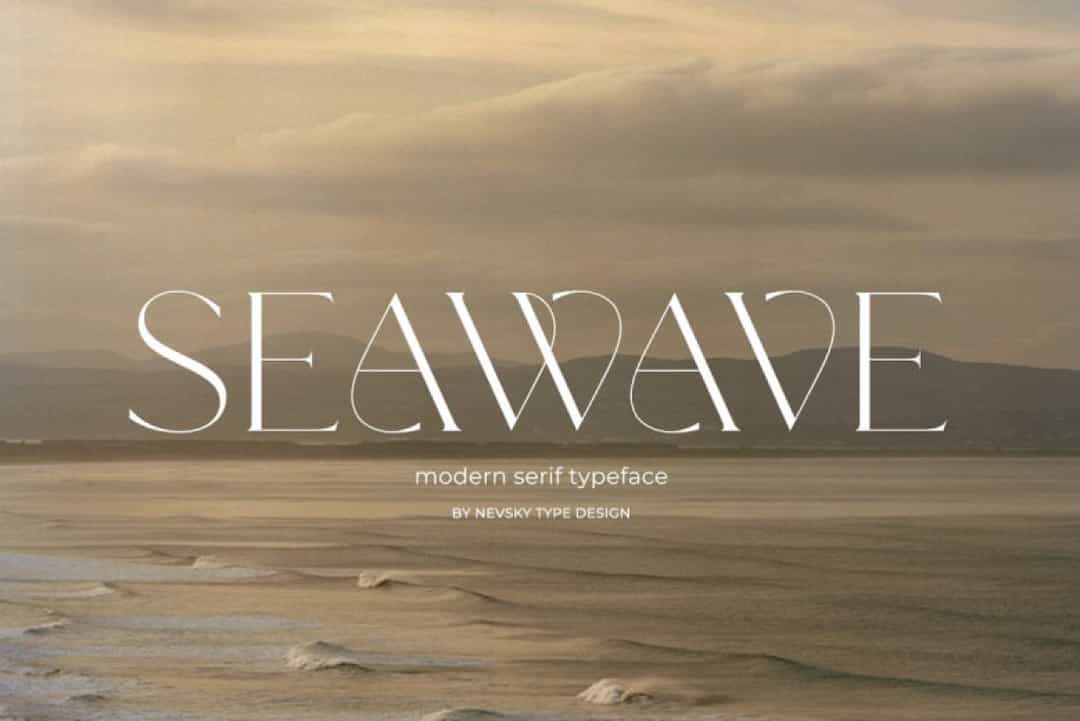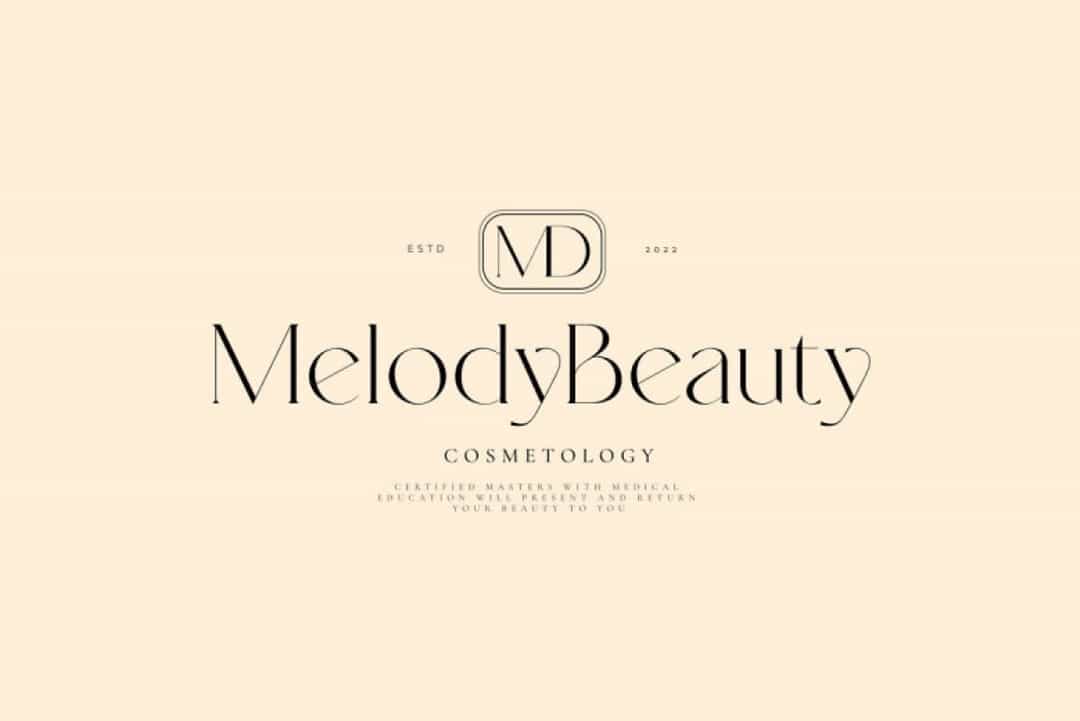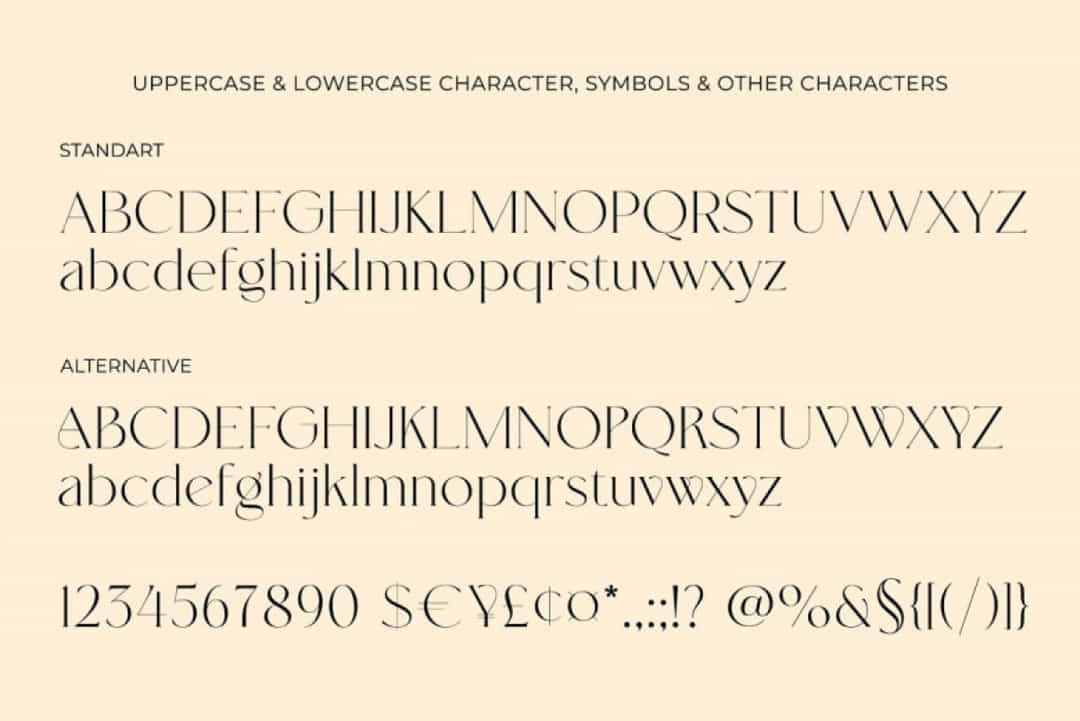
NT Seawaveis an elegant yet sophisticated serif font with playful elements. It captures your eyes with its curvature while remaining sophisticated enough for use as body copy or quotes in layouts or quotes on magazines or invitations or packaging for products and other items.